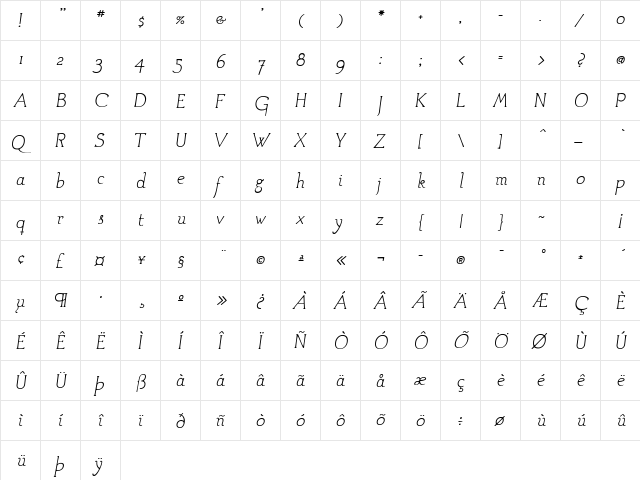
AgedItalic Regular
Design Context for AgedItalic Typeface
AgedItalic is a composed and adaptable typeface that performs quietly and consistently across a wide range of design contexts. The dynamic lean of this cut emphasises speed and emphasis in any layout.